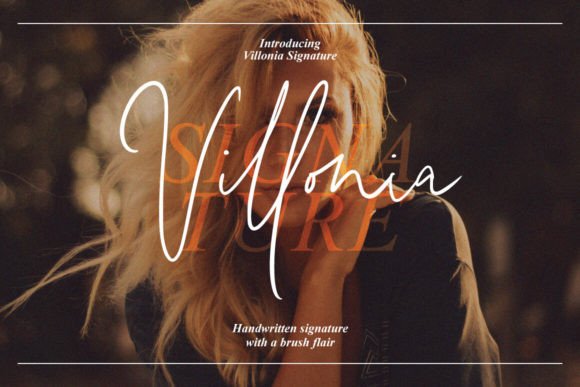
Take a journey into a world of artistic elegance with Villonia Font, a script that dances with grace and sophistication. Crafted by the skilled hands of Tebaltipis.std, Villonia Signature is a captivating font that weaves a spell of creativity and charisma into every word.
With its mesmerizing handmade Signature style, Villonia leads you on an adventure of aesthetic allure. Its decorative characters and dynamic baseline add a touch of whimsy and charm to your designs, capturing the attention of viewers with their captivating aura. Picture the elegance of this font adorning your invitations, transforming them into treasured keepsakes.
Villonia Signature's beauty shines brightly in branding materials, business cards, and posters, adding a touch of class and distinction to your professional endeavors. Quotes and poems come alive when adorned with this font, their words imbued with a depth of emotion that resonates with readers.
Unlock the full potential of Villonia Signature with its extensive collection of 200+ glyphs. Unleash your creativity with the Open Type features that allow you to explore a world of stylistic possibilities, from swashes to ligatures. Each stroke, each curve, and each letter is a testament to the artistry and craftsmanship that went into creating this font.
Embrace the beauty of PUA unicode, allowing you to effortlessly access a universe of alternate characters with ease. A craftsman's dream, Villonia Signature grants you the freedom to explore and innovate, adding depth and dimension to your designs.
Discover the artistic potential that awaits you with Villonia Signature. Let your creativity dance to the rhythm of its strokes, and witness your designs transform into masterpieces. Embrace the beauty of Villonia Signature today and embark on a journey of creative enchantment.